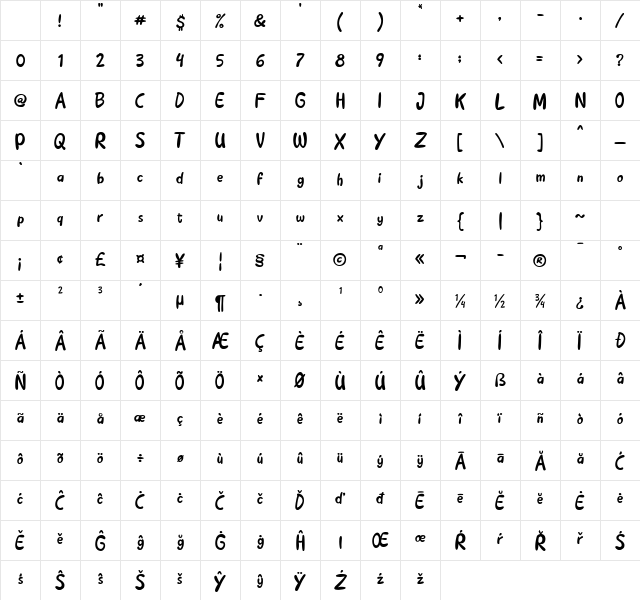
Complete Happy Boy Regular glyph index. Displaying only characters natively supported by Happy Boy Regular font.
Happy Boy is a composed and adaptable typeface that performs quietly and consistently across a wide range of design contexts.